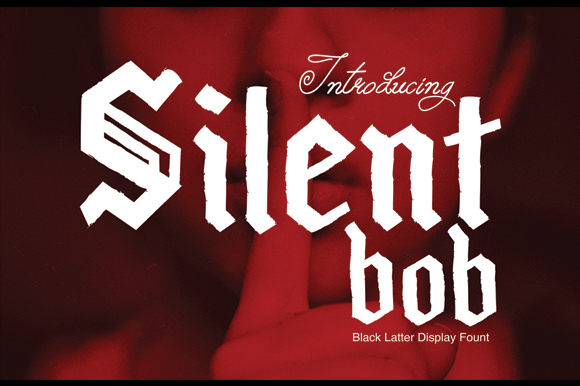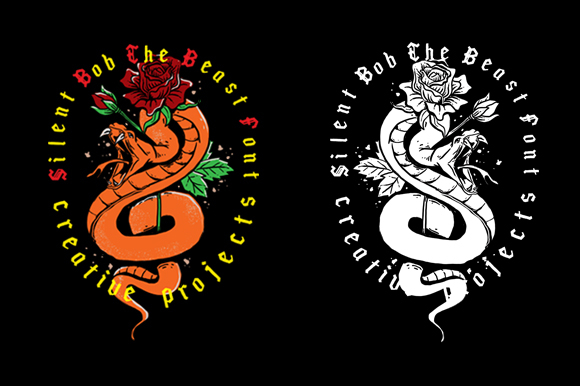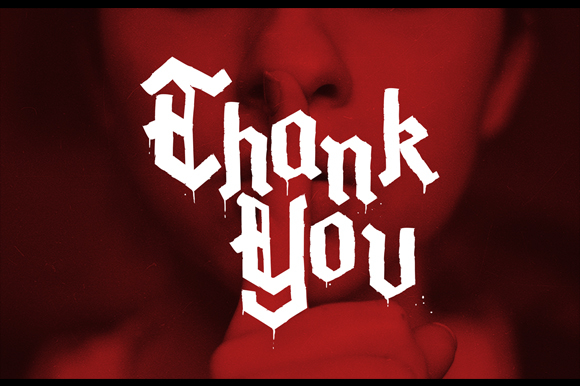
About SilentBob Font
Silent Bob is a new and casual blackletter font with a modern and casual feel. Silent Bob is suitable for horror movie covers, books, magazines and more